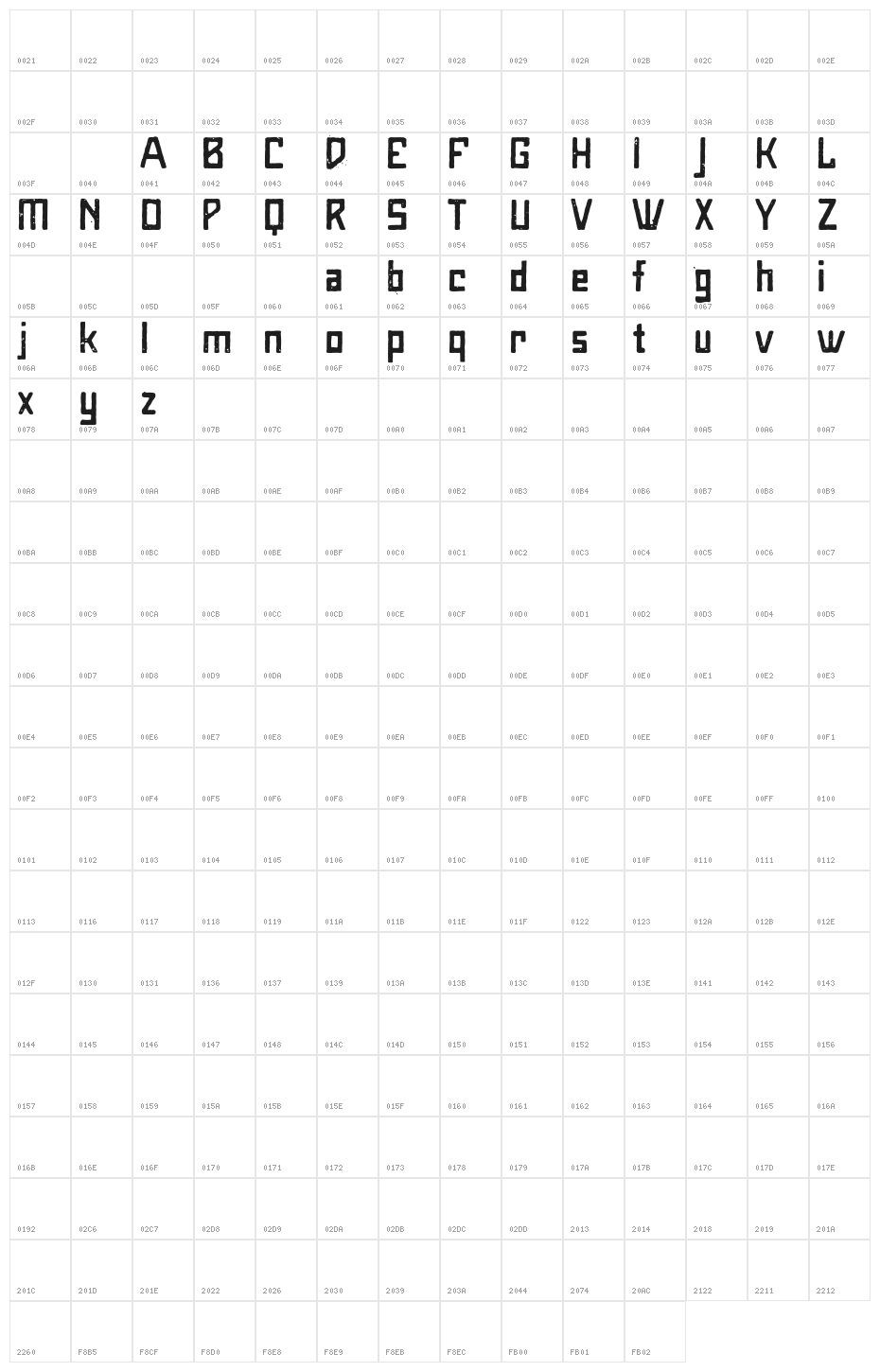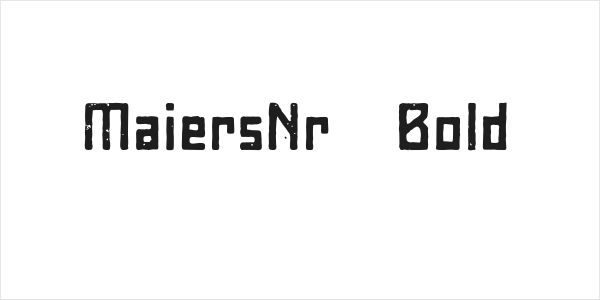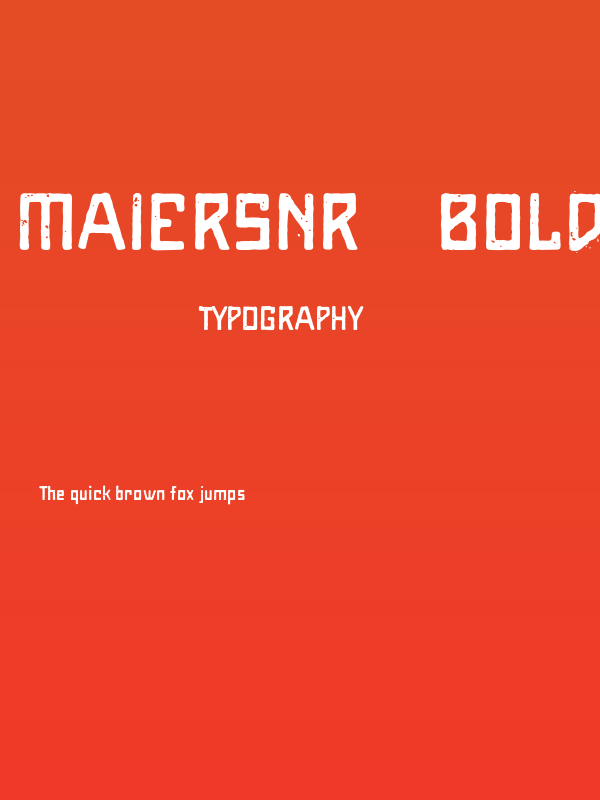
MaiersNr8-Bold Font
MaiersNr8-Bold Description
This font features a bold, distressed style with a vintage, industrial feel. The uppercase and lowercase letters are uniformly bold, with a slightly rough texture that gives it a worn, aged appearance. The characters are blocky and geometric, with consistent stroke widths that contribute to its boldness. The font maintains a strong presence, making it ideal for impactful designs. The numbers and special characters follow the same stylistic cues, ensuring a cohesive look across all glyphs. Its unique, rugged aesthetic makes it stand out, perfect for projects that require a touch of retro or grunge flair.
| Proposed Projects | Ideal for posters, branding, packaging, and any design needing a vintage or industrial touch. |